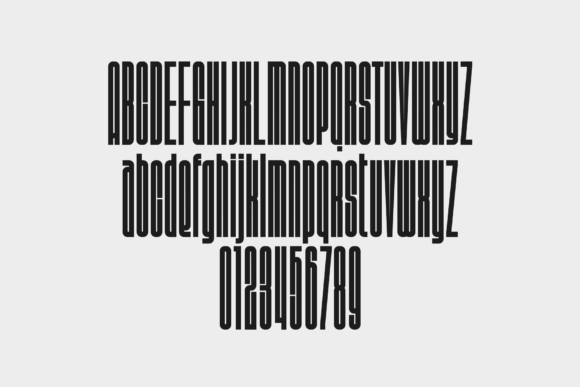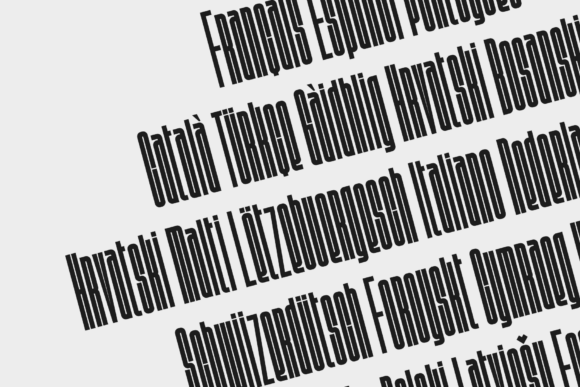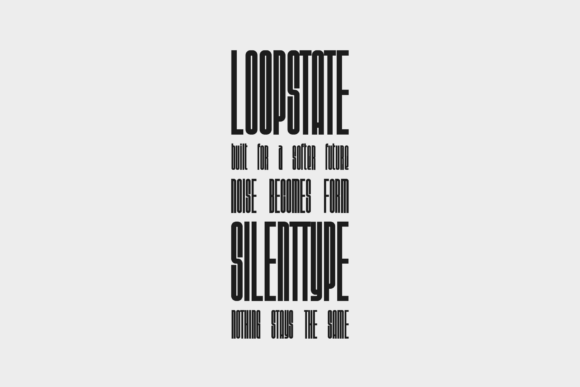
Introduction to Isling Font
Isling | Tall Condensed Headline Reach new vertical heights with the Isling font, an ultra-condensed headline typeface designed for dramatic scale and sophisticated minimalism.
This Isling typeface features extreme verticality and tight, clean lines that give every word a sense of architectural strength and modern elegance The Isling font is a premier choice for high-end editorial layouts, fashion magazine covers, and cinematic titles where you need a font that stands tall and proud.
Key Features of Isling Font
Why Choose Isling Font?